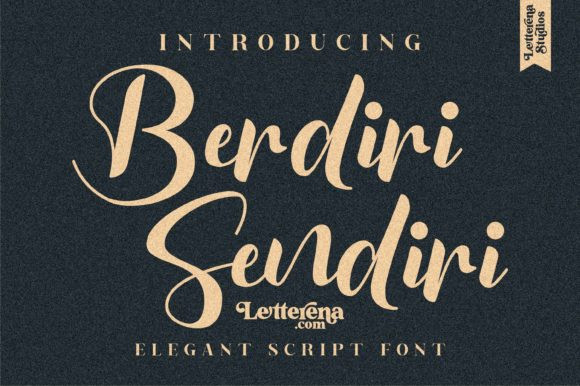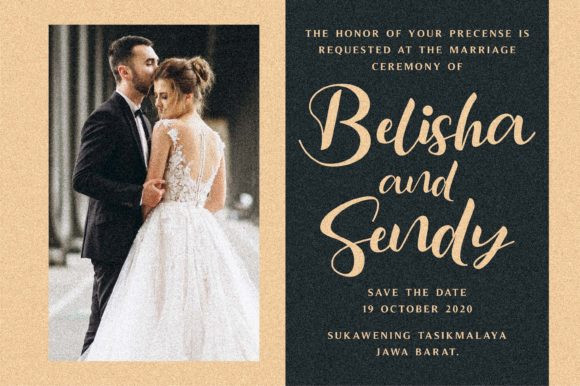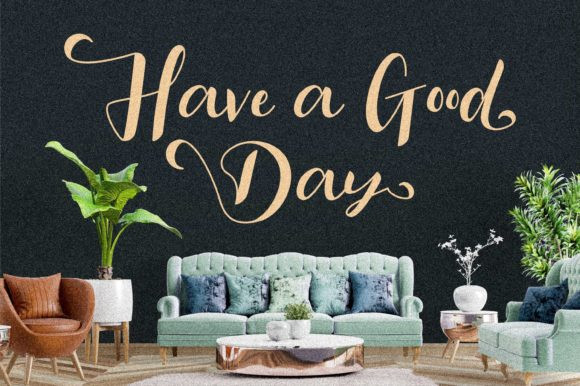
Berdiri Sendiri Font
Berdiri Sendiri FontBerdiri Sendiri is an elegant and flowing handwritten font. This is the perfect font for making original and outstanding designs.